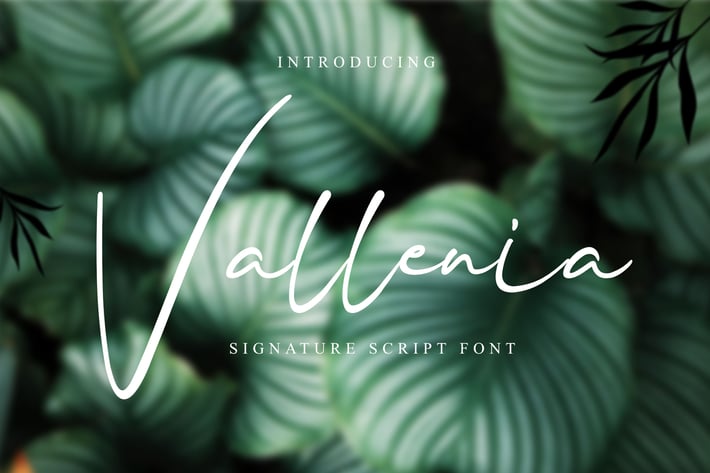
Vallenia Script Font
Vallenia is a sweet and stunning script font. It features a modern style and will add a unique feel to your upcoming projects. Get inspired by its authentic feel and use it to create gorgeous wedding invitations, beautiful stationary art, eye-catching social media posts, and cute greeting cards.